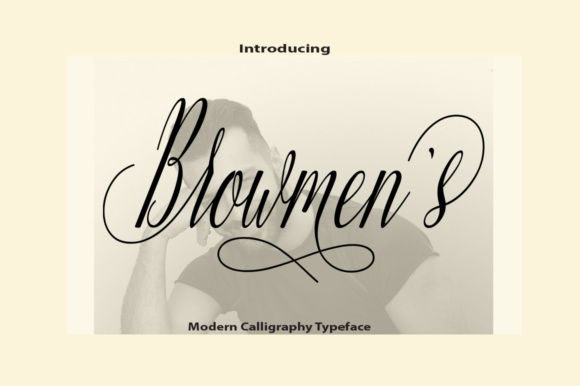
Browmen’s Font
Introducing Browmen's Font, the enchanting script that will captivate your designs with its graceful curves and alluring style. Crafted by the skilled hands of Razi_studio, Browmen's is a captivating fusion of classic calligraphy and contemporary flair, ready to breathe life into your creative visions.
Immerse yourself in the world of Browmen's Font, where elegance and modernity intertwine seamlessly. Its dancing baseline adds a touch of whimsy, inviting you to explore the endless possibilities of your imagination. Whether you're designing breathtaking wedding invitations, sophisticated branding materials, or simply adding a touch of charm to your personal projects, Browmen's is the perfect choice.
Every stroke of Browmen's embodies femininity and grace, promising to elevate your designs to new heights. Its versatility knows no bounds, making it suitable for a wide range of projects, from delicate logos and headers to enchanting social media posts. With Browmen's at your fingertips, you'll have the power to create designs that shimmer with sophistication and leave a lasting impression.
But Browmen's is more than just a font; it's an invitation to express your creativity and embrace the beauty of written words. Its captivating curves and alluring style will ignite your imagination, inspiring you to craft designs that are both visually stunning and emotionally resonant.
If you're seeking a font that embodies elegance, modernity, and the power to captivate, look no further than Browmen's Font. Its enchanting charm and versatility will transform your designs, leaving a lasting impression on all who encounter them.
Embrace the allure of Browmen's Font today and embark on a creative journey where beauty and inspiration collide.